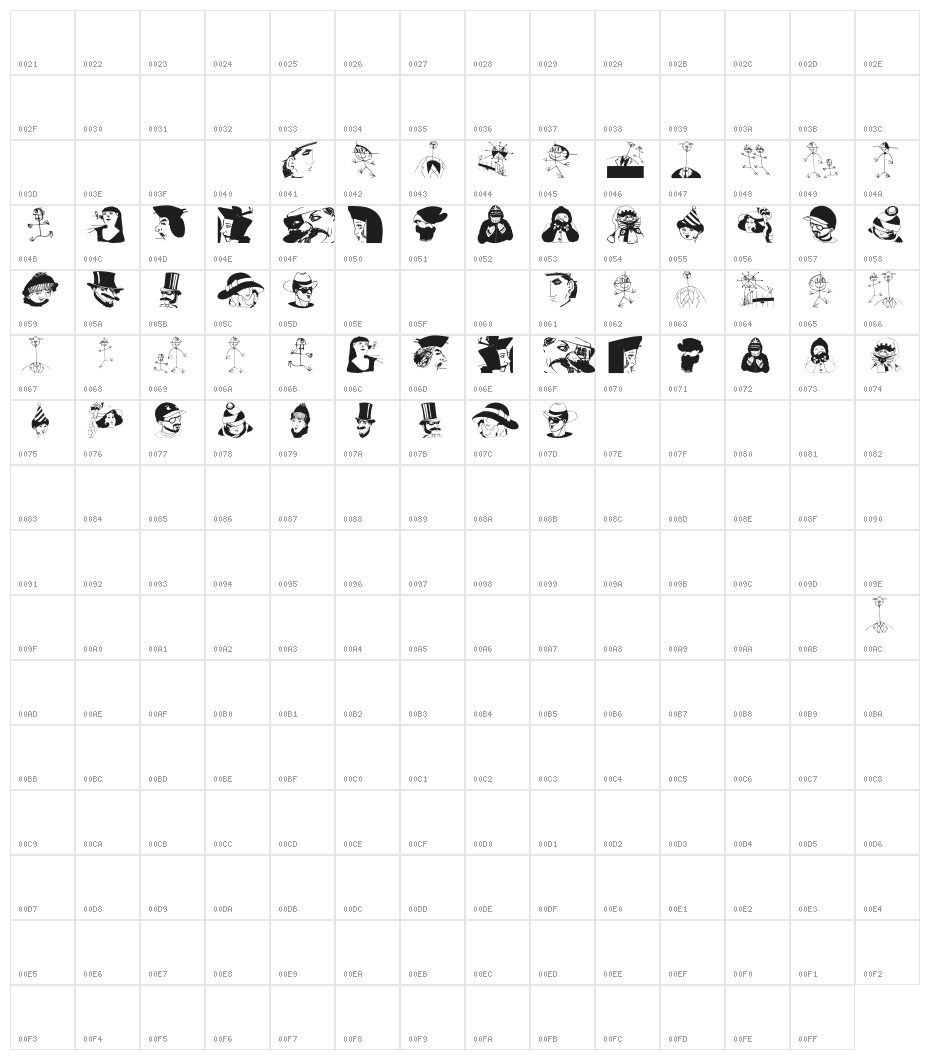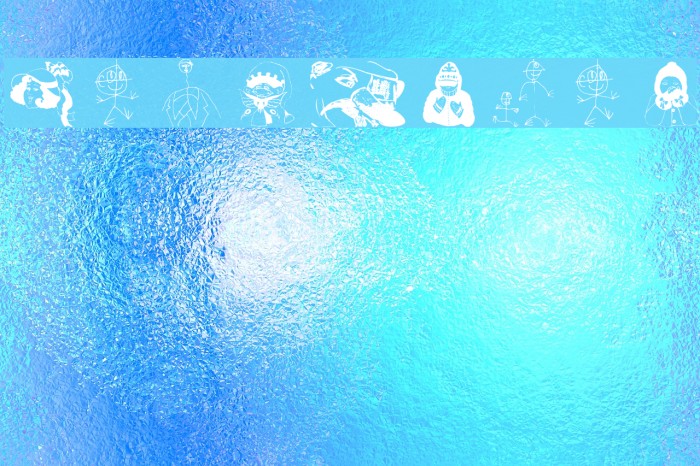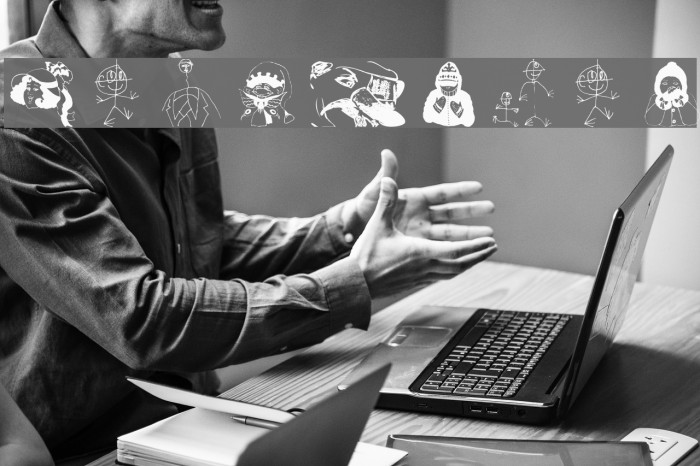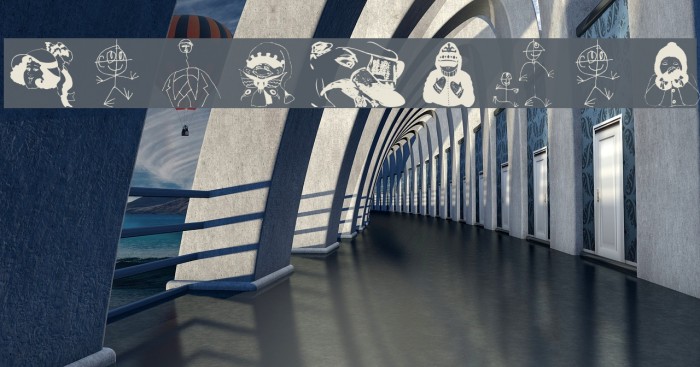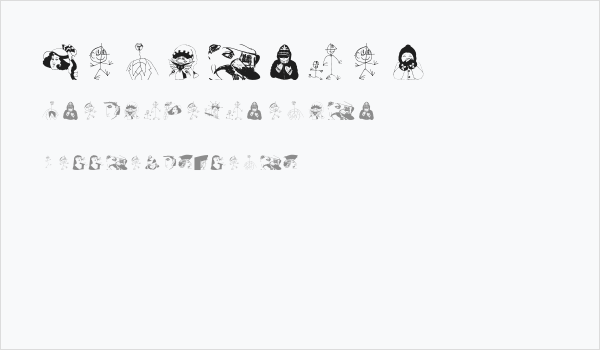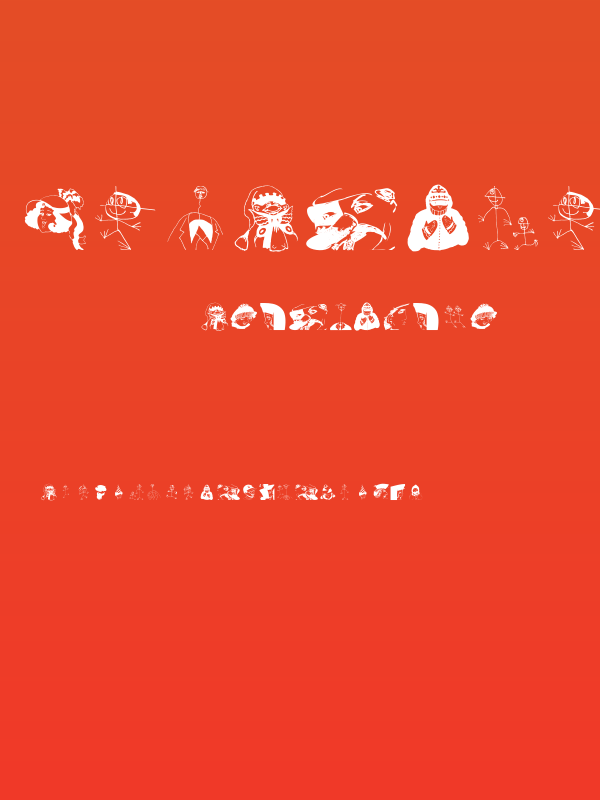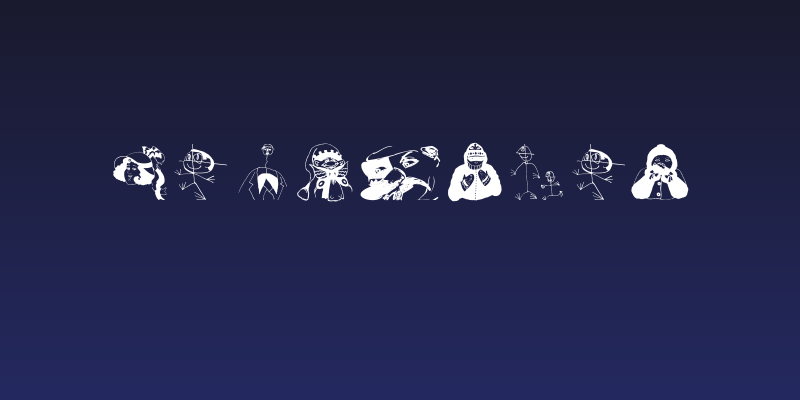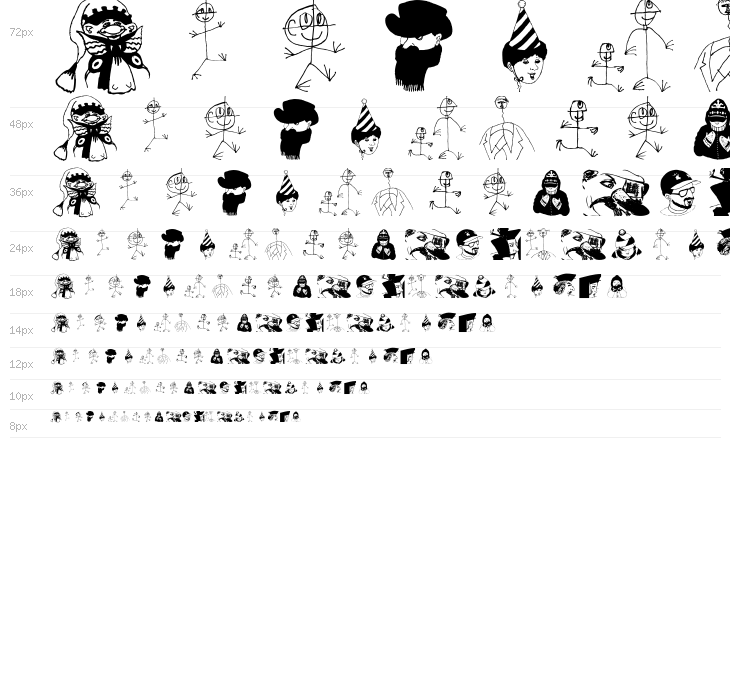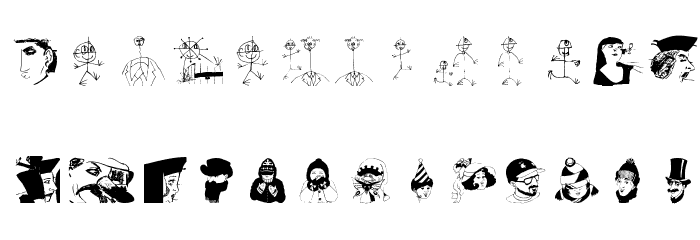
Vectories Font
Vectories Description
A highly decorative and whimsical font composed of illustrated characters and faces, each glyph representing a unique cartoon-like figure rather than traditional letterforms.
| Overall Style | Decorative, Whimsical, Playful |
| Use Case | Logos, Posters, Headlines, Children's materials |
| Proposed Projects | Children's books, creative posters, party invitations, comic strips, branding for playful products. |